Cartoon fonts are a fun and playful way to add a touch of whimsy to your designs. Whether you’re creating a birthday card, a social media graphic, or a flyer for an event, cartoon fonts can bring a sense of lightheartedness and creativity to your projects. In this article, we’ll explore how you can use cartoon fonts in Canva to enhance your designs and make them stand out from the crowd. Get ready to unleash your inner artist and let your imagination run wild with cartoon fonts!
– Introduction to Cartoon Fonts: Adding Playfulness to Your Designs
When it comes to design, choosing the right font can make all the difference in conveying the right message. Cartoon fonts are a great way to inject fun and playfulness into your designs, whether you’re creating a poster, a logo, or even a social media post. These whimsical fonts can add a touch of personality and charm that will make your designs stand out.
Cartoon fonts come in a variety of styles, from bubbly and bold to quirky and whimsical. They can help convey a sense of lightheartedness and creativity, making them perfect for projects aimed at children or those that want to evoke a sense of nostalgia. Whether you’re designing a birthday invitation or a children’s book cover, cartoon fonts can help bring your design to life in a way that is both eye-catching and memorable. Adding a playful touch to your designs with cartoon fonts can help you create a more engaging and captivating visual experience for your audience.
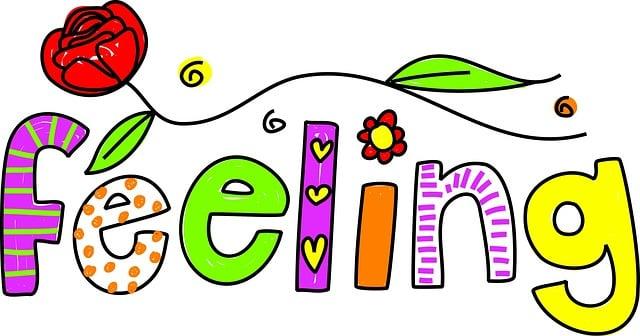
– Exploring the Wide Range of Cartoon Fonts Available in Canva
When it comes to adding a touch of whimsy and creativity to your designs, nothing does the job better than using cartoon fonts. In Canva, you have access to a wide range of cartoon fonts that can bring life and character to your projects. From playful and quirky to bold and expressive, there is a font for every style and purpose.
Whether you are working on a poster, invitation, social media graphic, or any other design project, using cartoon fonts can instantly elevate the visual appeal of your work. With options like Comic Neue, Fredoka One, and Chewy, you can easily find the perfect font to match the tone and aesthetic you are aiming for. Add a touch of fun and personality to your designs with these captivating cartoon fonts available in Canva.
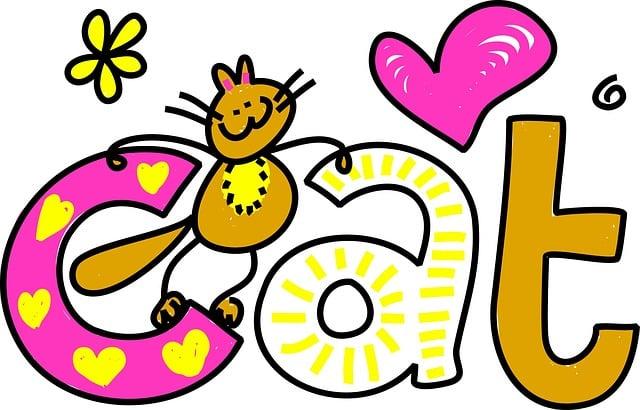
– Tips for Using Cartoon Fonts Effectively in Your Designs
When using cartoon fonts in your designs, it’s important to consider readability. Make sure the font you choose is clear and easy to read, especially when used in larger blocks of text. Avoid overly elaborate fonts that may be difficult for viewers to decipher.
Another tip for using cartoon fonts effectively is to consider the overall tone of your design. Choose a font that complements the theme and message of your project. Whether you’re going for a playful, whimsical look or a bold and energetic feel, the right font can help enhance the overall aesthetic of your design. Experiment with different cartoon fonts to find the perfect match for your project.
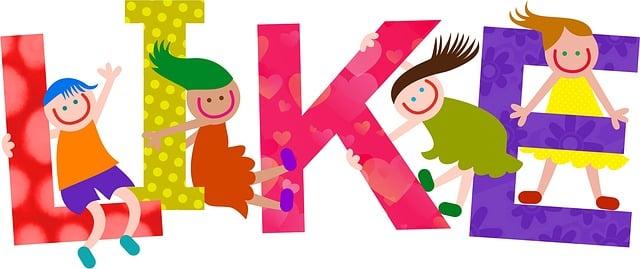
– Combining Cartoon Fonts with Graphics for Maximum Impact
Incorporating cartoon fonts with graphics can elevate your design and convey a fun and playful tone. By combining these elements effectively, you can create visually appealing content that captures attention and leaves a lasting impression on your audience. When selecting cartoon fonts, opt for ones that are bold, dynamic, and easy to read. Pairing these fonts with complementary graphics can enhance the overall aesthetic of your design and make it more engaging.
To maximize the impact of your design, consider the overall layout and composition of your content. Arrange the cartoon fonts and graphics in a cohesive manner to ensure a balanced and visually pleasing look. Experiment with different color schemes, sizes, and textures to create a harmonious design that grabs the viewer’s attention. Additionally, make use of bold and vibrant colors to make your design pop and stand out. By combining cartoon fonts with graphics thoughtfully, you can create visually striking content that resonates with your audience.
– Customizing Cartoon Fonts to Match Your Brand’s Personality
When it comes to branding, every detail matters, including the fonts you choose to represent your brand. Cartoon fonts can add a whimsical and playful touch to your branding, but it’s essential to customize them to match your brand’s personality. Here are some tips to help you choose and customize the perfect cartoon font for your brand:
- Consider your brand’s personality and values. Is your brand fun and quirky, or more sophisticated and elegant? Choose a cartoon font that reflects these qualities.
Q: Are there any tips for using cartoon fonts effectively in Canva?
A: When using cartoon fonts in Canva, it’s important to consider factors such as readability, color contrast, and alignment. Make sure the text is easy to read and stands out against the background. Additionally, play around with different font sizes and styles to find the perfect balance for your design.
In Retrospect
Cartoon fonts in Canva add a touch of fun and playfulness to any design project, making them perfect for adding a touch of whimsy.